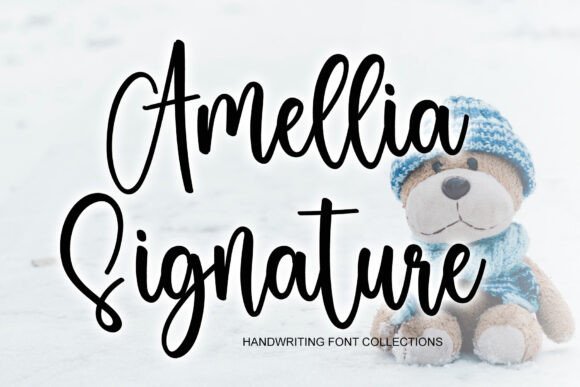
Introducing the Amellia Signature Font, a stunning handwritten font that adds a touch of sophistication and elegance to any design. Its smooth and natural flow makes it perfect for logos, invitations, and other creative projects that require a classy and modern look. With the Amellia Signature Font, you can give your designs a personal and unique touch that will leave a lasting impression.
Amellia Signature Font Key Features
- Font Family: Amellia Signature Font is a unique and elegant script font designed for personal and professional use.
- Unique Characteristics: The Amellia Signature Font features a beautiful, flowing script with unique flourishes and connections between letters, making it perfect for creating a personal and professional signature.
Amellia Signature Font Review
As a designer, I’ve had the chance to work with the Amellia Signature Font, and I must say it’s a mixed bag.
- ✨ Unique and elegant script style that adds a touch of sophistication to any design
- ✨ Wide range of ligatures and alternate characters that can be used to create beautiful, handwritten-like effects
- ⚠️ Limited language support, which may be a concern for designers working on projects that require multilingual support
- ⚠️ Some users may find the font to be a bit too ornate or over-the-top, which can make it difficult to read or use in certain contexts
Overall, I think the Amellia Signature Font is a great addition to any designer’s toolkit. While it may have some limitations, its unique style and ease of use make it a great choice for projects that require a touch of elegance and sophistication.